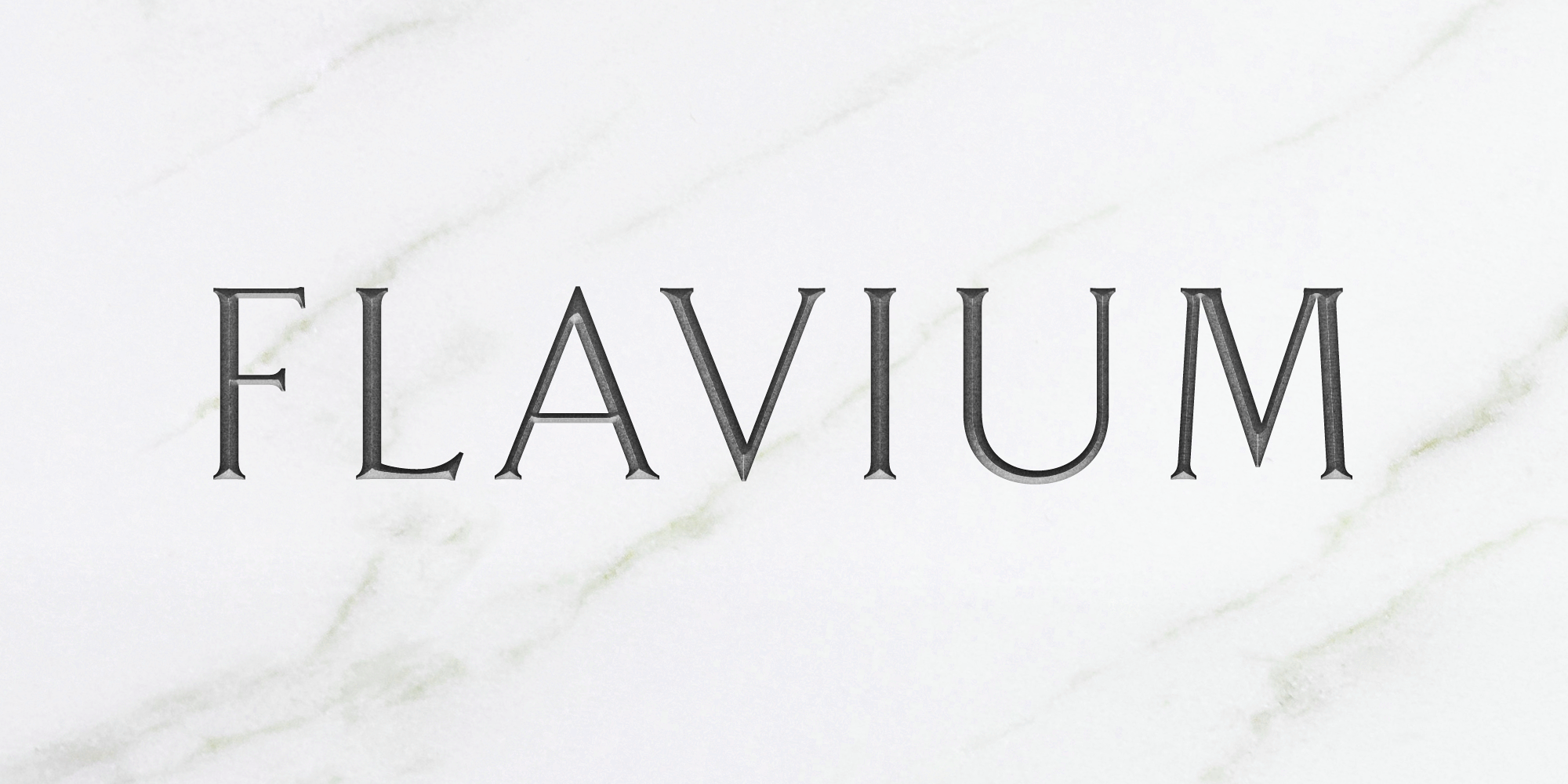
Flavium Font is perfect for luxury branding, editorial headlines, high-end packaging, book covers, and elegant invitations. Its classic serif design offers a refined and timeless look that enhances sophistication and readability.
What makes Flavium Font Free Download so exciting is its balanced contrast between thick and thin strokes combined with clean, sharp serifs. Inspired by classical Roman inscription styles, it brings a touch of historical grandeur to modern design projects.
The Flavium font family includes Flavium Regular, Flavium Italic, Flavium Bold, and Flavium Bold Italic, providing a versatile range for various typographic needs and creative expression.